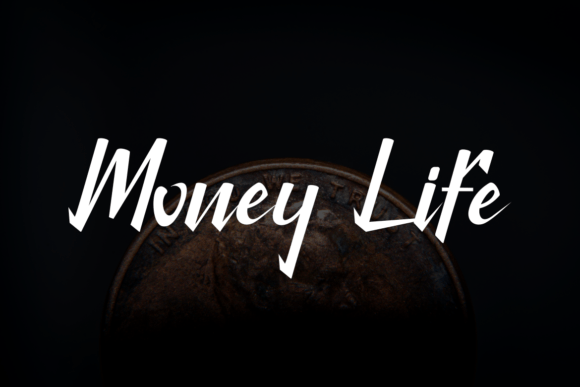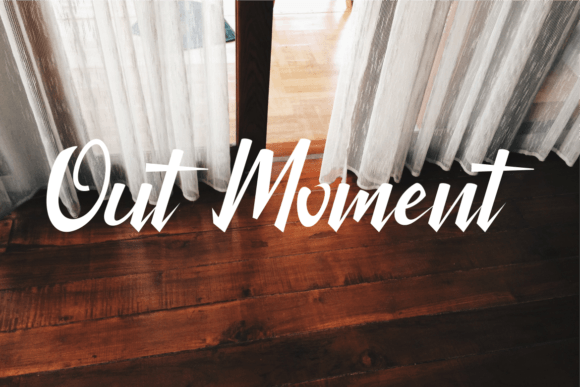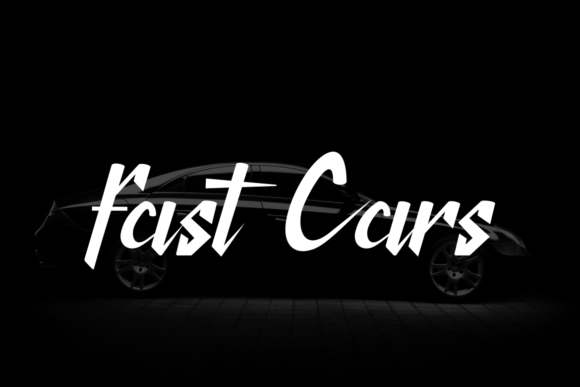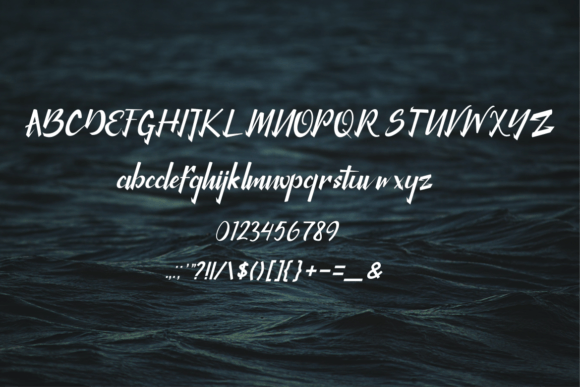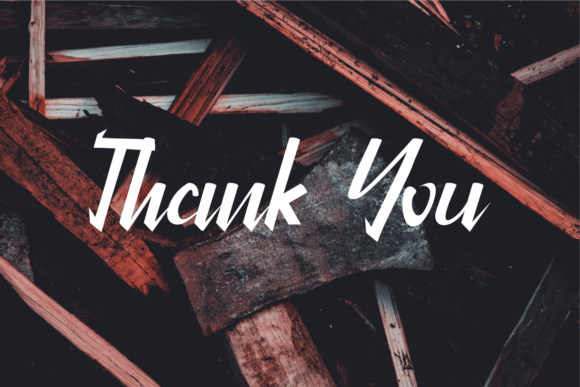
Introduction to Faricash Font
Faricash is a cool and modern handwritten script font.
Key Features of Faricash Font
Why Choose Faricash Font?
Faricash Font offers exceptional quality and versatility, making it a valuable addition to your design toolkit. Whether you’re creating for personal projects or commercial use, Faricash Font delivers professional results.